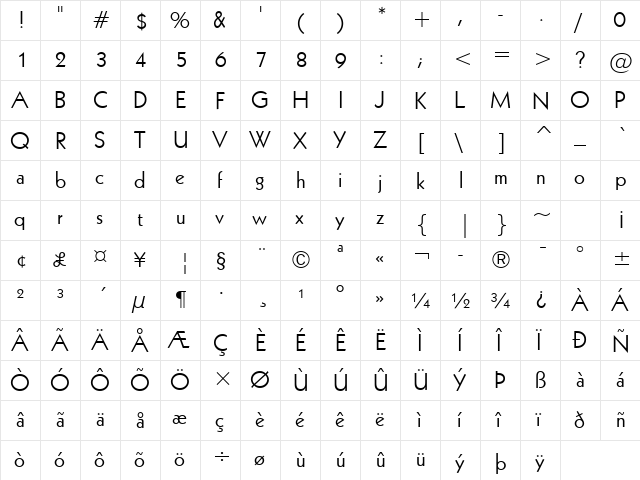
Geometr231 BT Roman
Design Context for Geometr231 BT Typeface
Geometr231 BT takes a measured approach to typography — its balanced proportions and neutral character make it a reliable workhorse for both digital and print work.